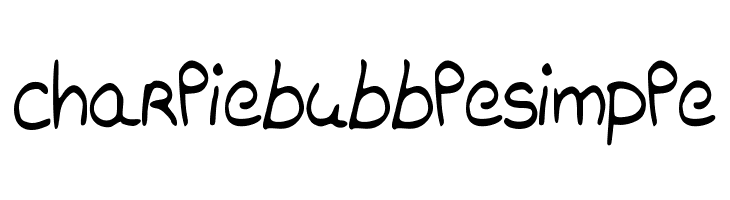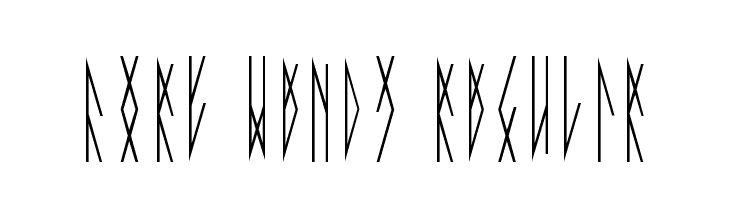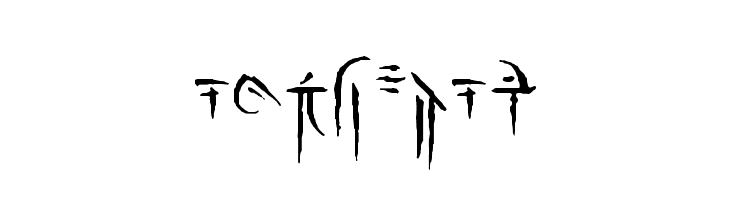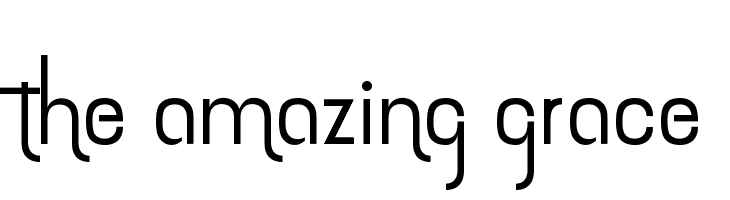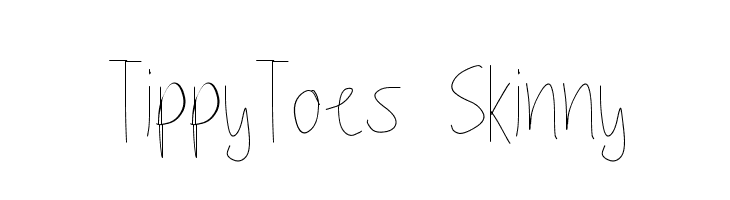
A playful, hand-drawn font with rounded edges and a whimsical style.
A modern, sleek font with elongated, geometric letterforms and unique curves.
A decorative and abstract font with elongated, angular letterforms and geometric shapes.
A mystical, runic-style font with sharp, elongated characters.
A playful, casual handwritten font with fluid strokes and a whimsical charm.
A playful, thin, handwritten font with elongated strokes and a whimsical style.
A quirky, hand-drawn font with elongated, narrow characters.
A tall, slim font with elongated vertical strokes and narrow letterforms.